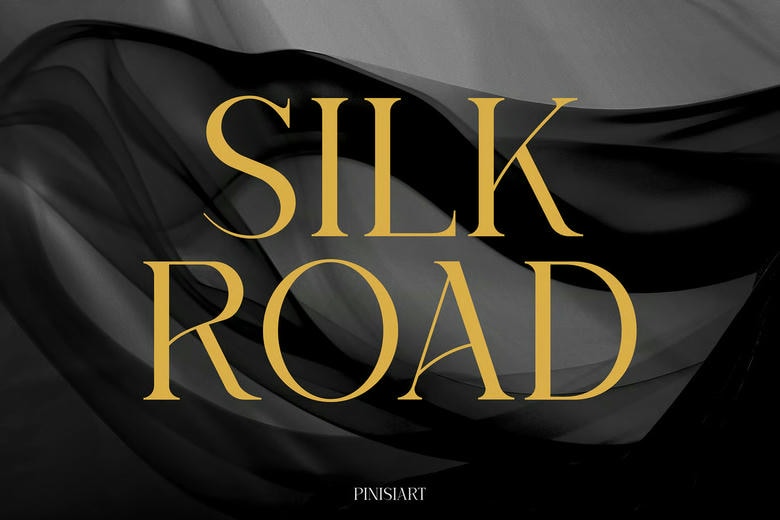
Silkroad Font
Silkroad is a modern luxury serif font with rounded lines, harmonious proportions, and soft lines- it is ideal to use on the work that requires a feeling of grace, understandable clarity, and sophistication. It is suitable in expensive branding and editorial design projects due to its elegant letterforms and serif and refined details.
Need the timeless grace and versatility whether your designing a fashion catalogue, hotel brand name or a fragrance; Silkroad will offer all types of grace and versatility. This is a wow font our thoughts. It is iconic.
Silkroad Serif Font